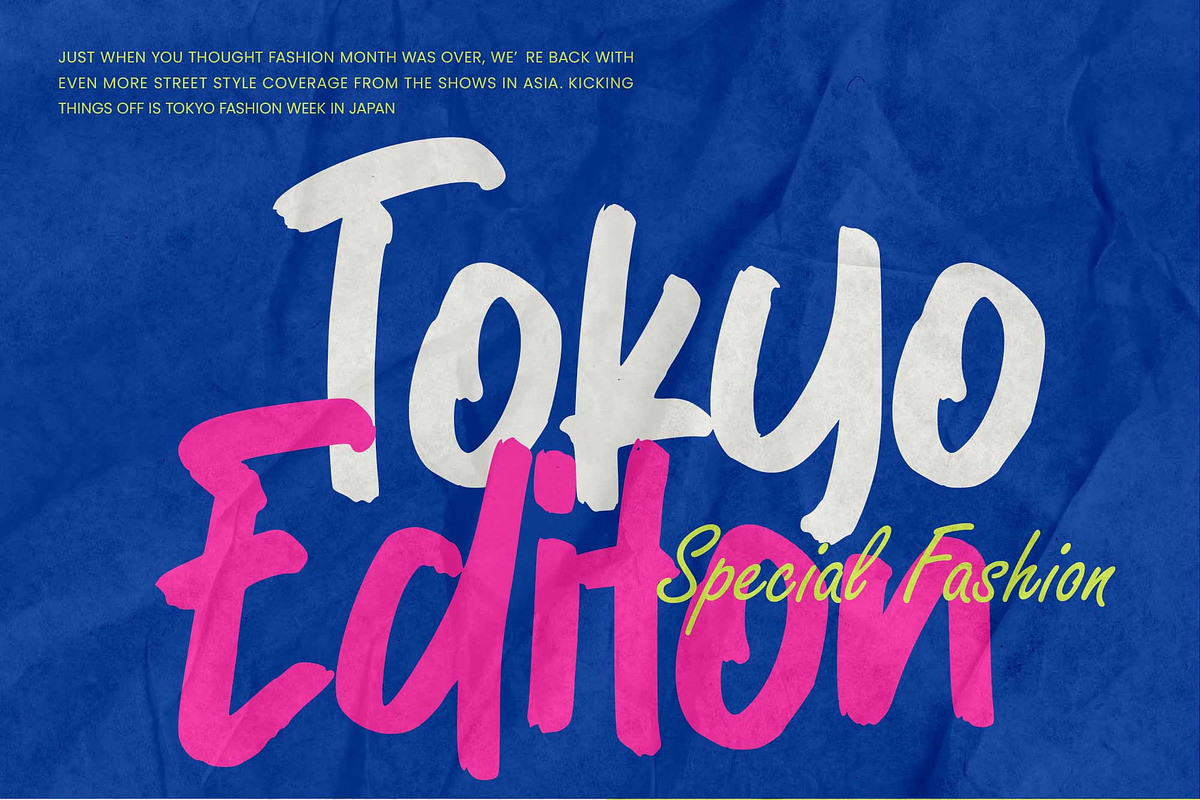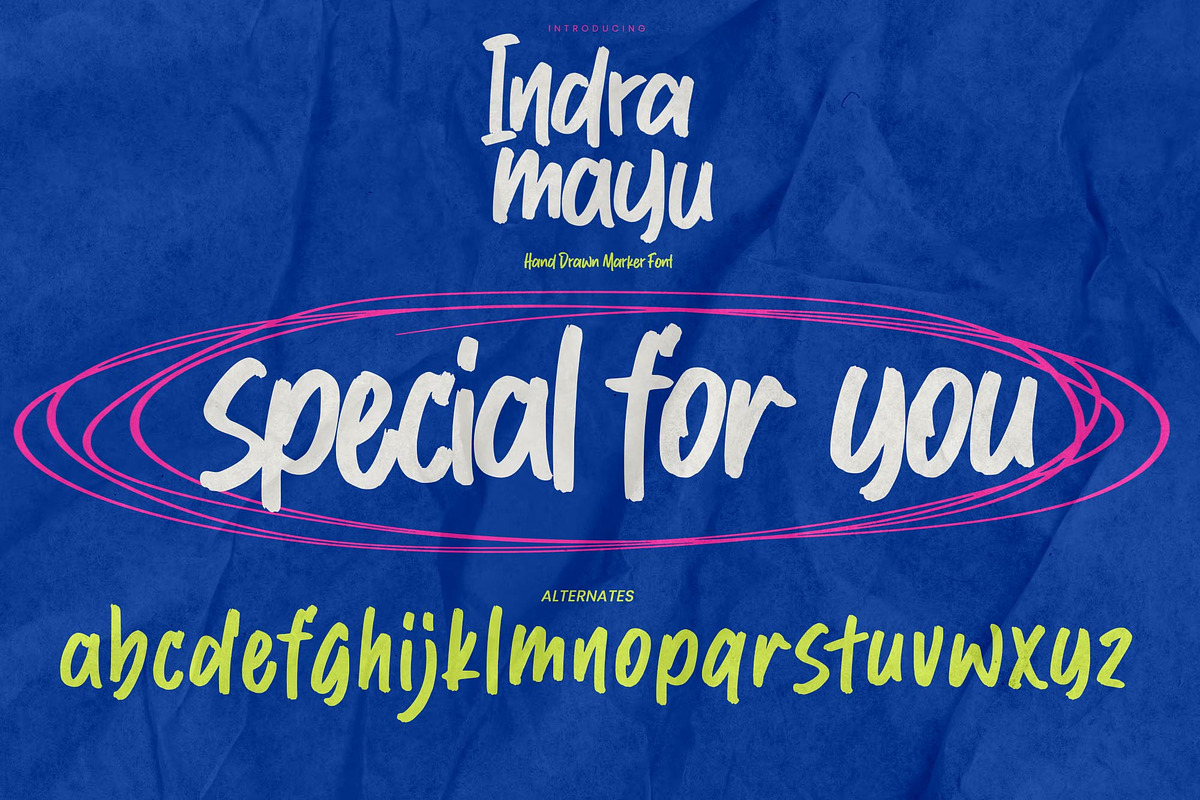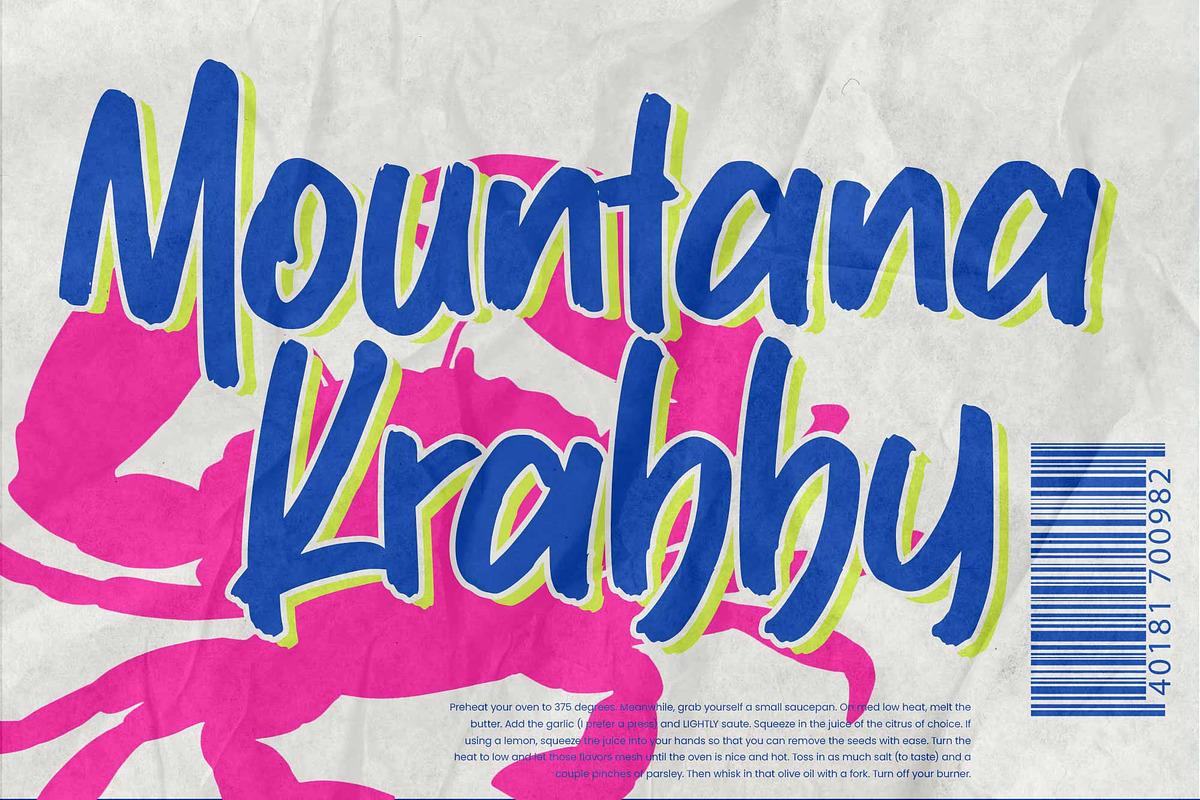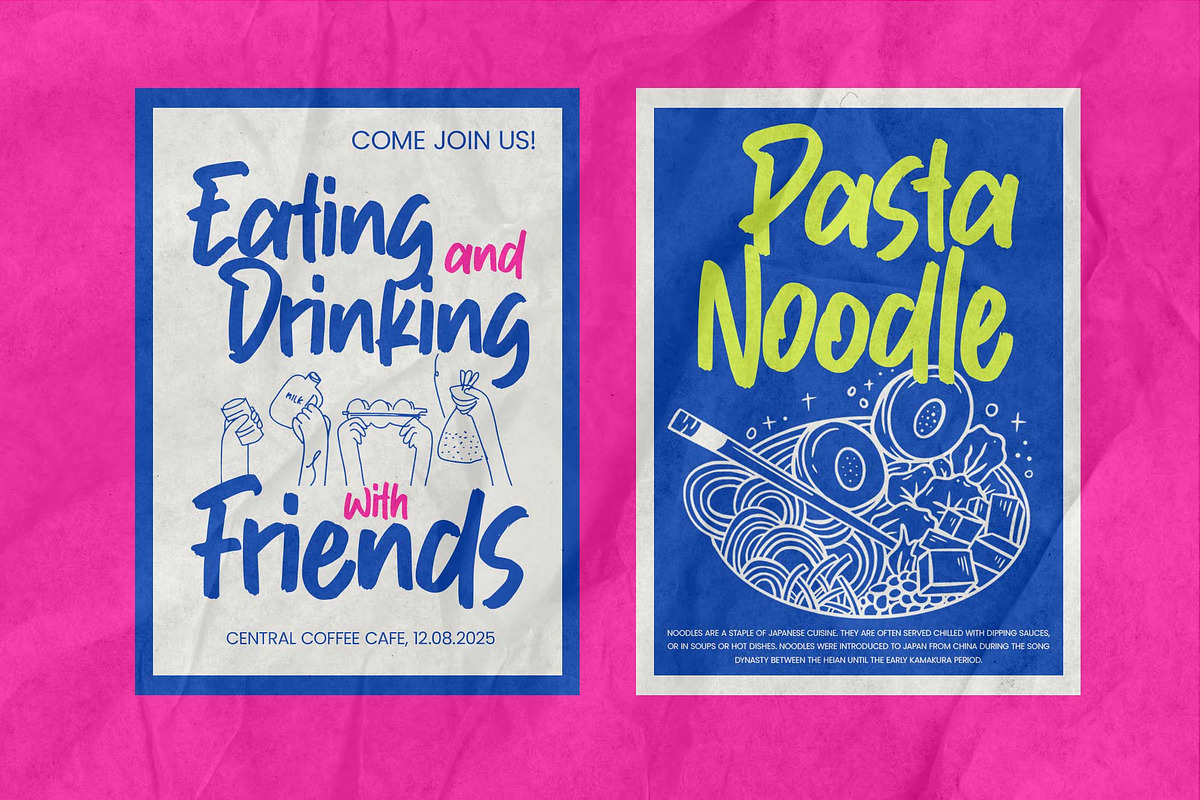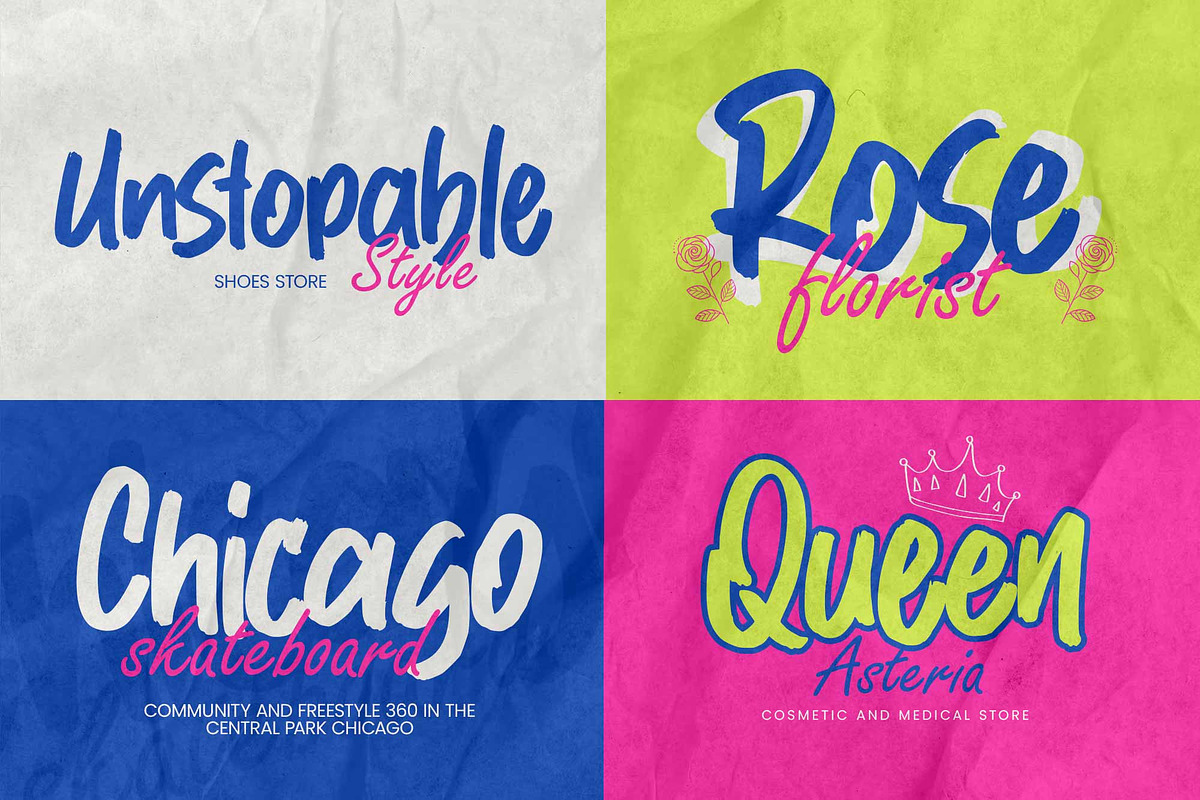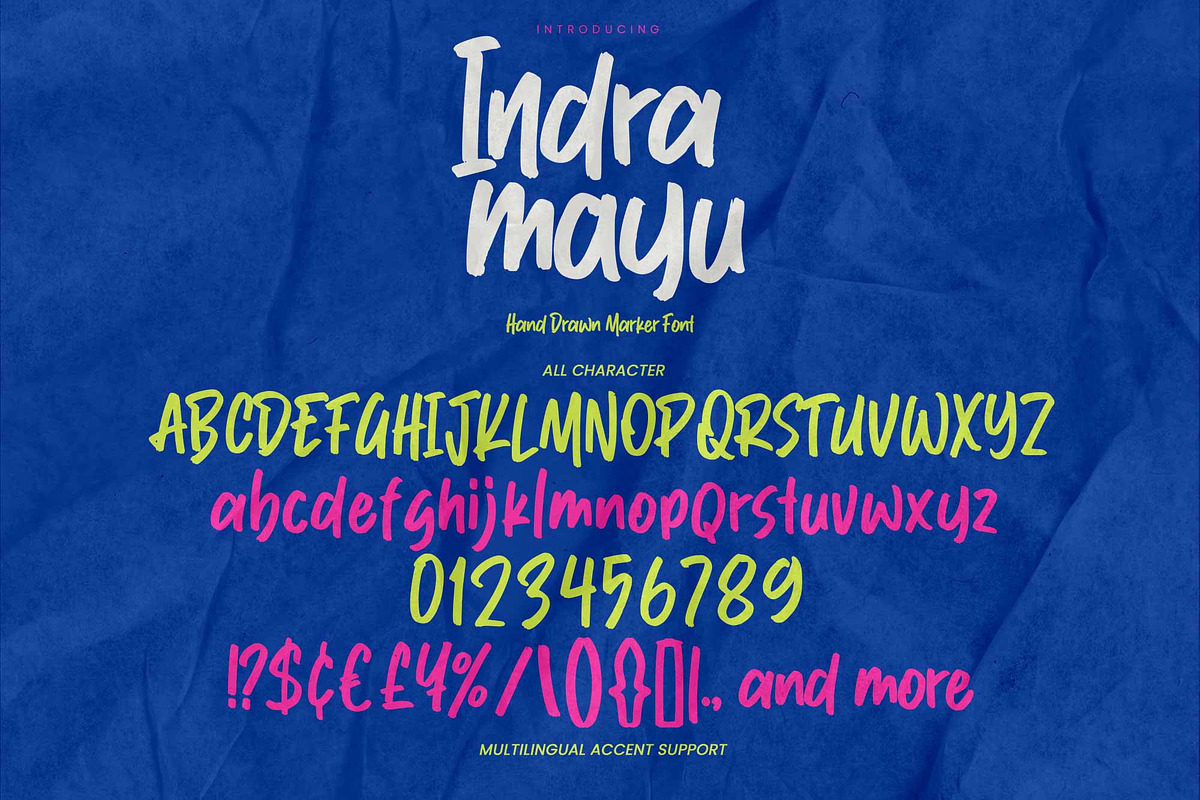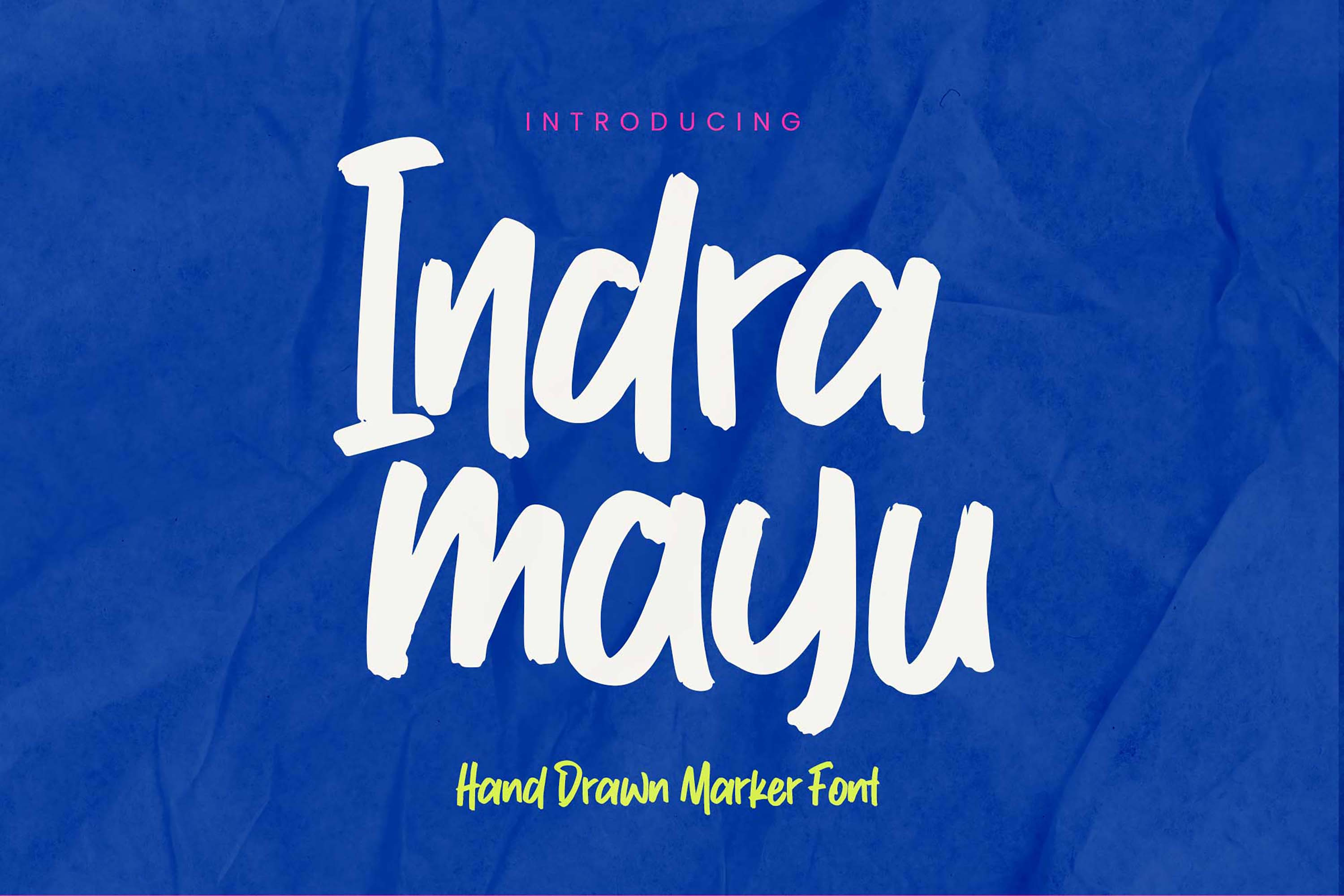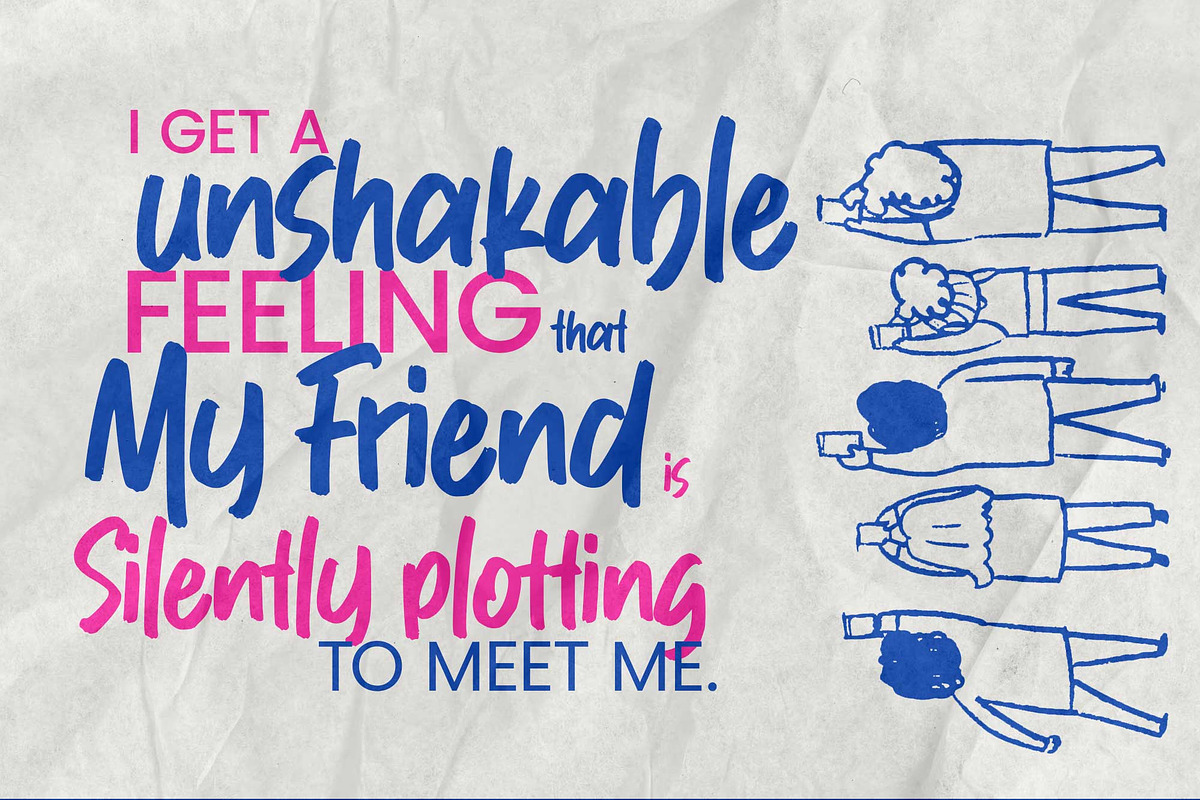
Indramayu – Hand Drawn Marker Font
Indramayu This is a Hand Drawn Marker Font, this is a handmade font with more alternates and handmade font, this font is perfect for making a strong statement in your designs.
Logos
Posters
Product packaging
Branding
Advertisements
Invitations
Stationery
Wedding designs
Labels
Photography watermarks
Quotes
and more
Add the bold and authentic character of this Font to your next project and capture the essence of the minimalist aesthetic.